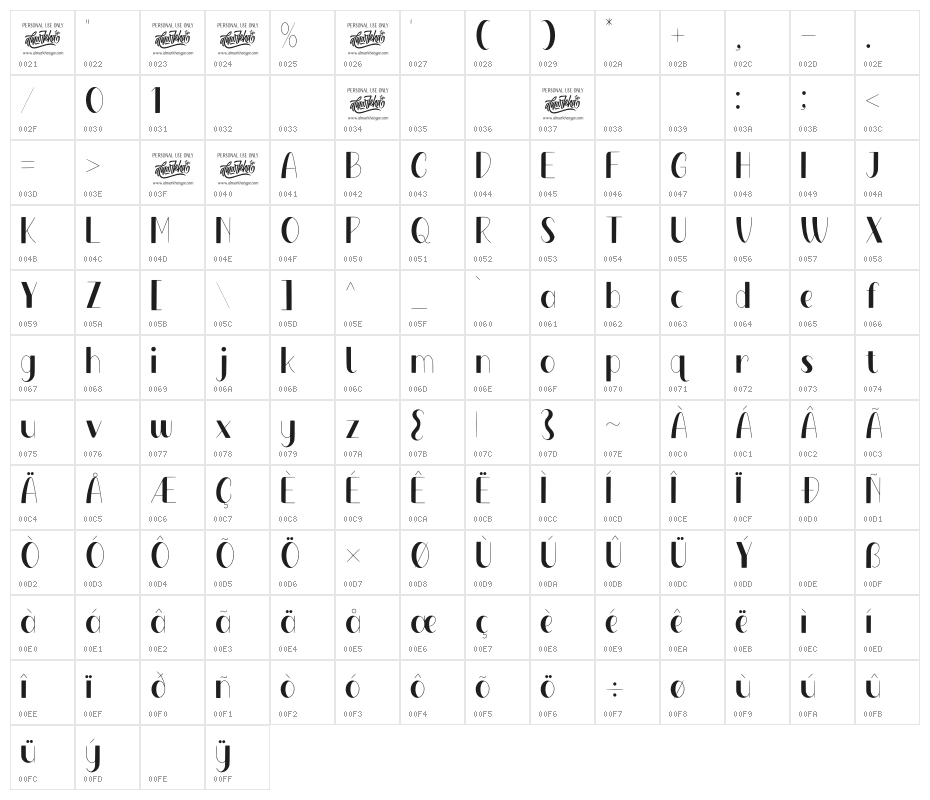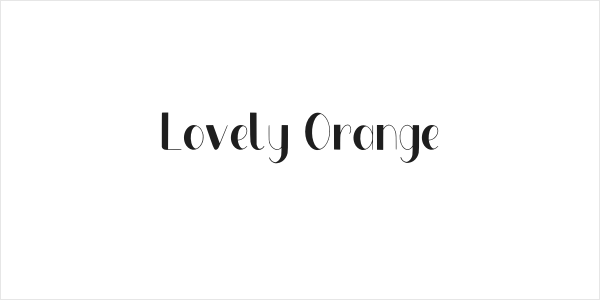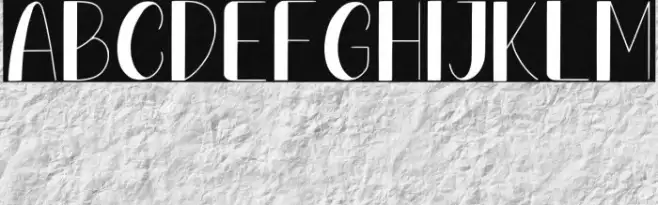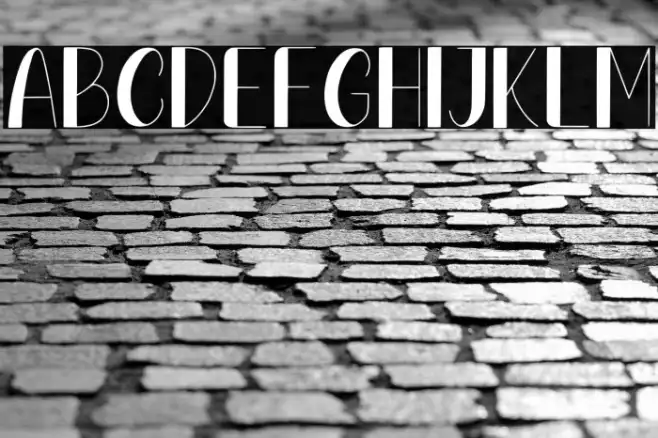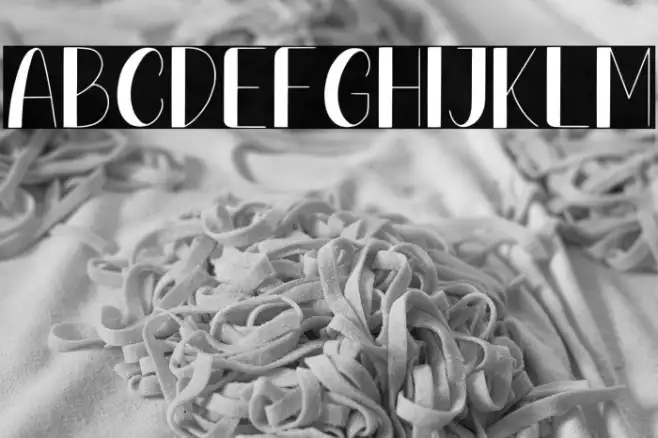
Lovely Orange Font
Lovely Orange Description
This font exhibits a unique blend of modern and decorative styles, characterized by its elegant and artistic letterforms. The uppercase letters feature a mix of thick and thin strokes, creating a dynamic and eye-catching appearance. The lowercase letters maintain a similar style, with a playful and fluid design that adds a touch of whimsy. The numerals are bold and distinct, ensuring readability. Special characters are creatively designed, adding to the font's overall charm. This typeface is perfect for projects that require a stylish and contemporary look, such as branding, invitations, and editorial design.